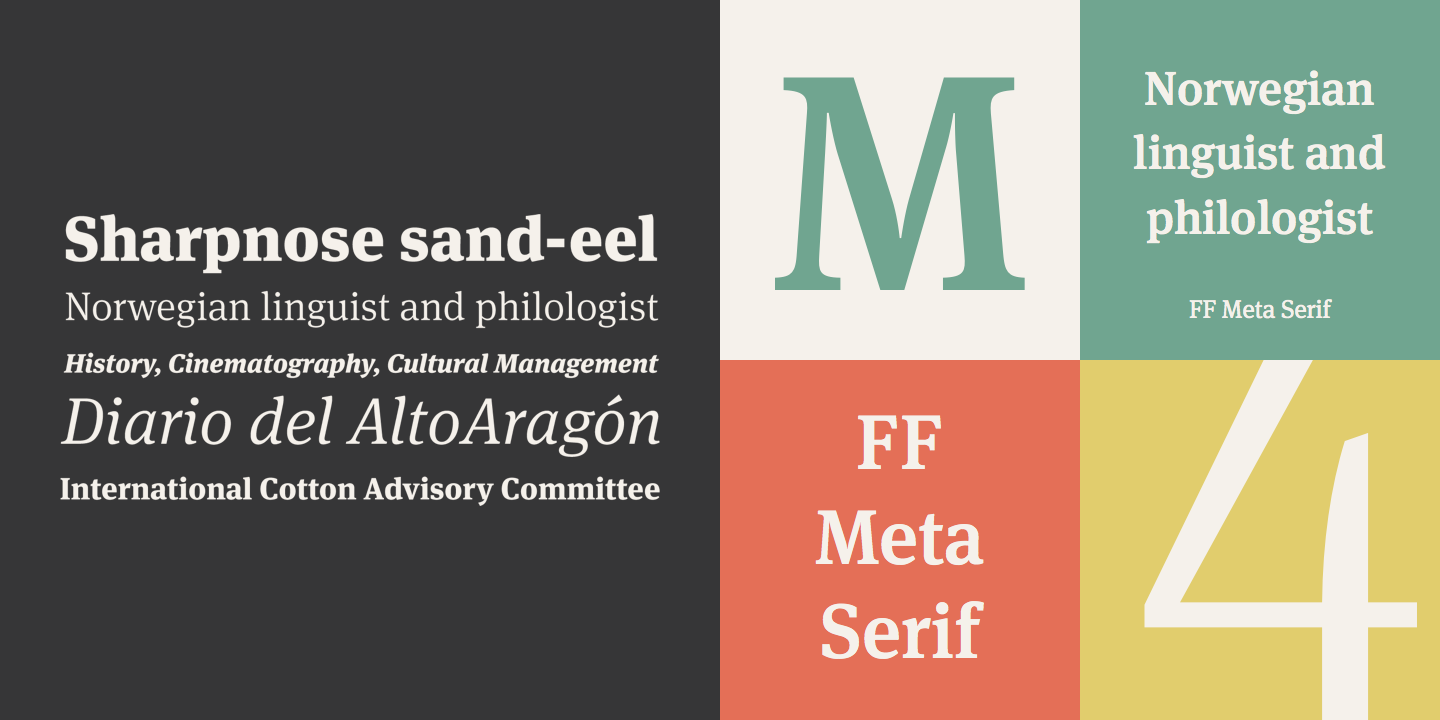
The FF Meta Serif Font is an exceptional choice for projects that demand a blend of classic readability, modern sophistication, and a harmonious relationship with its sans-serif counterpart, FF Meta. It's perfectly suited for extensive body copy in books and magazines, corporate identity systems where consistency across various media is crucial, annual reports, web and screen design for content-heavy platforms, and any design that requires a versatile, highly legible, and aesthetically pleasing serif typeface. Its balanced and refined character makes it ideal for conveying a sense of trustworthiness, professionalism, and enduring quality.
What makes FF Meta Serif Font so exciting is its unique origin and intelligent design. Developed by Erik Spiekermann, Christian Schwartz, and Kris Sowersby as a companion to the hugely popular FF Meta sans-serif, it was meticulously crafted to share the same "color" and characteristics as its sans-serif sibling. This means that while it offers the traditional warmth and legibility of a serif, it also carries the modern, lively spirit of Meta. It's more than just "Meta with serifs"; it's an entirely new face that feels both classic and contemporary. The curvy refinements of its hybrid terminals become beautifully apparent at display sizes, while remaining exceptionally readable as body text. Its italics are particularly noteworthy, offering a warm and welcoming tone in contrast to Meta's more restrained italics, adding a touch of "sign-painterly" flair in heavier weights.
The FF Meta Serif Font family is comprehensive, designed to offer extensive typographic flexibility. It is typically available in six weights: Light, Book, Medium, Bold, ExtraBold, and Black, with a corresponding italic version for each weight. This provides a wide range of options for creating nuanced typographic hierarchies, from subtle highlights to commanding headlines. Beyond the standard weights, FF Meta Serif also provides advanced typographical support with features like ligatures, small capitals, alternate characters, case-sensitive forms, fractions, superscript and subscript characters, and both oldstyle and lining figures (available in tabular and proportional widths). Furthermore, it supports a broad range of languages, including all Latin-based languages, Greek, and Cyrillic writing systems, making the FF Meta Serif Font Free Download an incredibly versatile and globally applicable tool.
Whether you're designing a detailed reference book, developing a unified corporate branding system, or creating compelling editorial content for print or screen, the FF Meta Serif Font Free Download offers an indispensable resource. Its harmonious design, robust functionality, and exceptional readability make it a premier choice for any project that requires a typeface of lasting quality, professional polish, and versatile application.